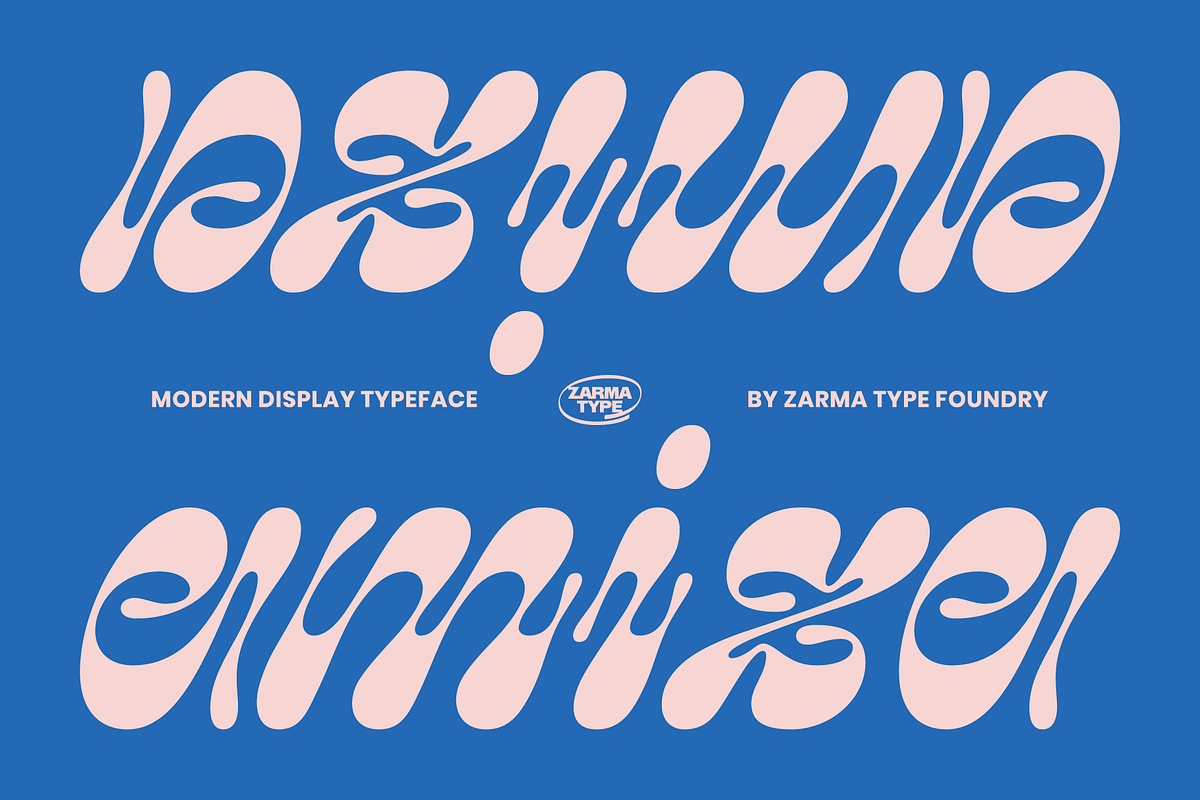
Amiza - Psychedelic Font Free Download is a bold and vibrant typeface inspired by the mesmerizing patterns and colors of the psychedelic era. With its distorted curves and groovy letterforms, this font is perfect for designs that need to make a statement. Ideal for album covers, music posters, retro branding, and creative projects, Amiza adds a surreal and artistic touch to any project. Whether you're working on a vintage festival poster or creating energetic content for a creative brand, Amiza - Psychedelic Font Free Download lets you explore its unique style in personal projects before purchasing a commercial license. Elevate your designs with the psychedelic energy and dynamic vibe of this striking font.